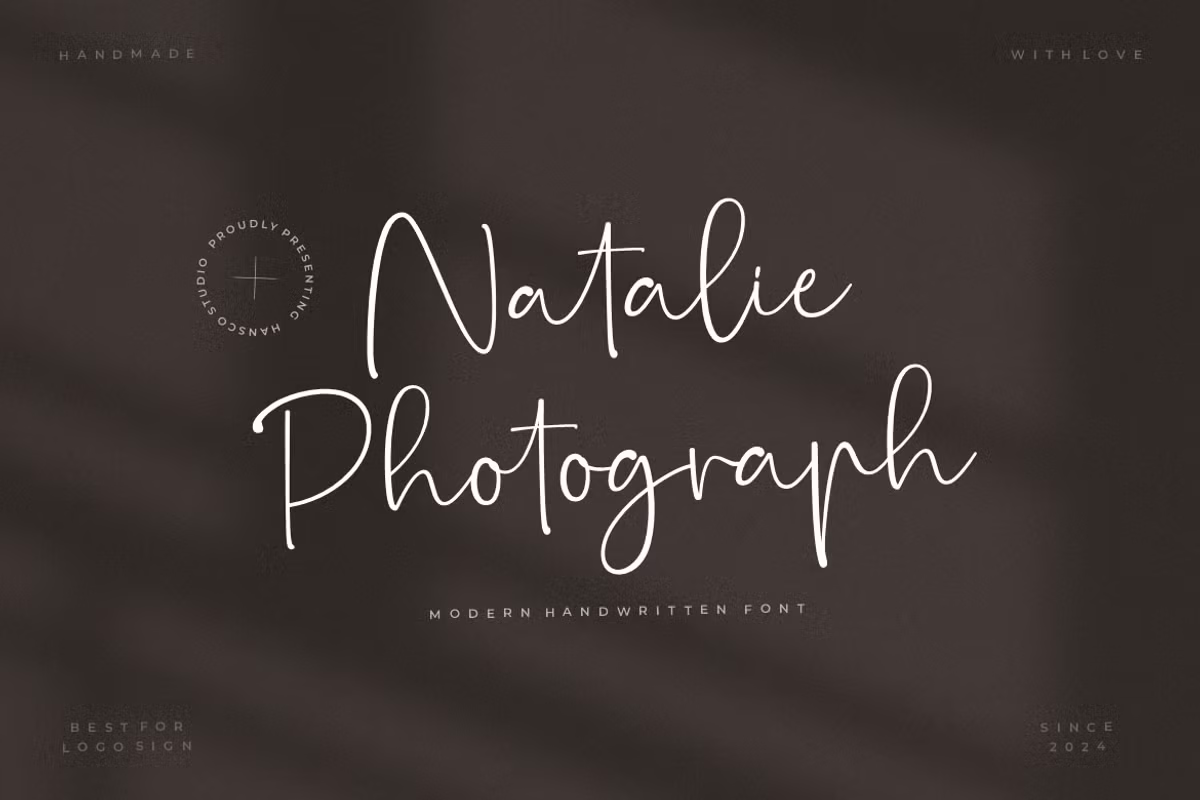
Natalie Photograph Font Free Download is a soft, elegant script typeface created with photographers and creatives in mind. With its flowing, handwritten style and modern calligraphy influence, this font is perfect for watermark logos, photography branding, social media posts, wedding invitations, and lifestyle blogs.
Its smooth curves and natural letterforms give your work a personal, signature-like touch—ideal for those who want their name or brand to feel warm, approachable, and professional. Natalie Photograph pairs beautifully with minimalist layouts and light, airy imagery.
Whether you're building a brand or adding a delicate detail to your design, this font brings grace and charm to every word.